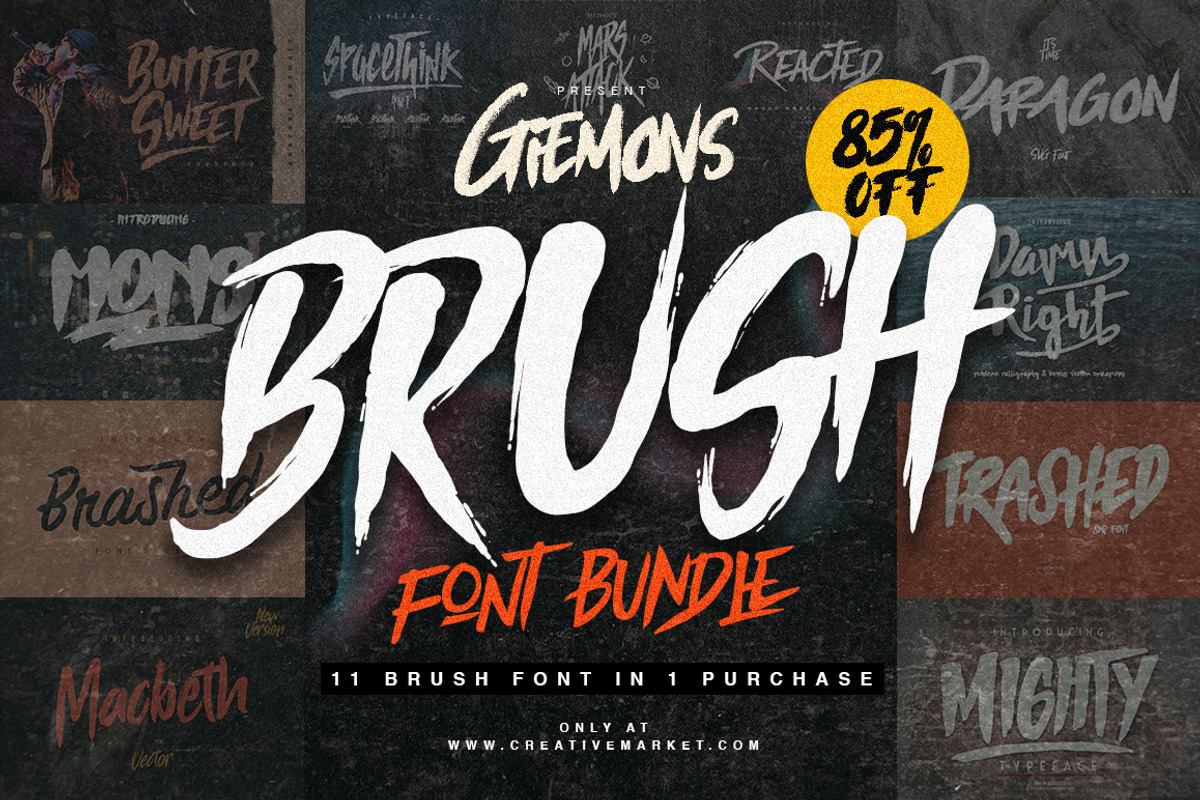
Brush Font Bundle Free Download is a versatile collection of bold, expressive brush-style fonts designed to bring texture, energy, and a handmade feel to your designs. With a variety of font styles included, this bundle is perfect for a wide range of creative projects, from logos and social media graphics to posters, packaging, and branding.
The fonts in this bundle feature dynamic brush strokes, creating a raw, organic aesthetic that is ideal for modern, artistic, or street-inspired designs. Whether you're designing for a trendy fashion brand, a creative event, or an artistic campaign, Brush Font Bundle Free Download provides the perfect mix of playful and professional options.
Enhance your creative projects with Brush Font Bundle Free Download, and add bold, hand-crafted typography to your designs. Perfect for designers looking to inject energy and personality into their work.